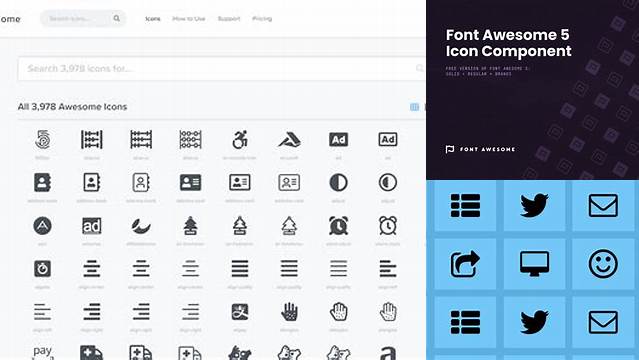
Font Awesome 5 Free: Easy Guide For WordPress
Hey guys! Are you looking to spice up your WordPress website with some awesome icons? Then you've probably heard of Font Awesome, the internet's favorite icon library. In this guide, we'll dive deep into how to use Font Awesome 5 Free in your WordPress site. We're talking everything from installation to customization, so buckle up and let's get started!
What is Font Awesome and Why Use It?
Before we jump into the how-to, let's quickly cover the what and why. Font Awesome is essentially a massive library of scalable vector icons that you can use on your website. Unlike traditional image-based icons, Font Awesome icons are vector-based, meaning they look crisp and clear on any screen size. No more pixelated icons – yay!
But why should you use Font Awesome specifically? There are tons of reasons:
- Scalability: As mentioned, these icons are vectors. This scalability is the key benefit that makes the icons stay sharp on any device, from smartphones to high-resolution desktops. This ensures a consistent and professional look across all platforms, enhancing the user experience.
- Customization: Font Awesome gives you a lot of control over how your icons look. You can easily change their size, color, and even add shadows or other effects using CSS. Customization options allow you to match the icons perfectly with your brand's color scheme and overall design. This level of personalization helps maintain a cohesive visual identity across your website.
- Accessibility: Font Awesome icons are accessible! They can be styled to meet accessibility standards, making your website more user-friendly for everyone. Accessibility is a crucial aspect of web design, ensuring that your site is usable by people with disabilities. By using Font Awesome, you can make your icons accessible to screen readers and other assistive technologies.
- Huge Library: With thousands of icons to choose from, you're bound to find the perfect ones for your needs. The huge library of icons covers a wide range of categories, including social media, web applications, and general-purpose symbols. This extensive selection means you'll likely find icons for every aspect of your website, from navigation menus to contact forms.
- Free (for Basic Use): The free version of Font Awesome offers a generous selection of icons that are perfect for most websites. While there's also a Pro version with even more icons and features, the free version provides a solid foundation for your icon needs. This makes Font Awesome a cost-effective solution for adding visual flair to your site.
Using Font Awesome is a breeze. It's a simple way to add visual elements to your site without slowing it down. Plus, it can actually improve your website's SEO by making it more visually appealing and user-friendly.
- Configure the Plugin (If Necessary): Some plugins might require minimal configuration. For the official Font Awesome plugin, you usually don't need to do much. Just ensure it's activated, and the icons should be available.
- Start Using Icons: Once the plugin is active, you can start using Font Awesome icons in your posts, pages, widgets, and even your theme files. Start using icons by simply using the appropriate HTML or shortcode. The plugin handles the technical details of loading the Font Awesome library.
Using a plugin is the easiest method. This option is excellent for those who prefer a code-free solution. Plugins handle the technical aspects, making it simple to implement Font Awesome icons across your site. Just install, activate, and start adding icons to your content and design.
Method 2: Using a CDN (Content Delivery Network)
A CDN hosts the Font Awesome files on a network of servers, ensuring fast loading times for your website visitors. This method involves adding a snippet of code to your theme's header file.
- Get the CDN Link: Go to the Font Awesome website and find the CDN link for the free version. You can usually find this in the documentation or on their CDN page. Get the CDN link; this is a crucial step as it connects your site to the Font Awesome library hosted on a content delivery network.
- Edit Your Theme's
header.phpFile: In your WordPress dashboard, go to "Appearance" -> "Theme Editor." Find theheader.phpfile. (Be careful when editing theme files directly! It's always a good idea to back up your site first.) - Add the CDN Link: Paste the CDN link within the
<head>tags of yourheader.phpfile. Save the changes. - Start Using Icons: With the CDN link in place, Font Awesome icons are now available for use on your site. You can begin adding icons using their HTML code snippets.
Using a CDN ensures faster loading times. This option is a good balance between simplicity and performance. It allows your website to load icons quickly from a global network of servers. Adding the CDN link to your theme's header is a straightforward process, providing a performance boost for your site. This method is suitable for those who want to minimize plugin usage while still enjoying the benefits of Font Awesome.
Method 3: Self-Hosting Font Awesome
This method involves downloading the Font Awesome files and hosting them on your own server. It gives you the most control but also requires some technical know-how.
- Download Font Awesome: Go to the Font Awesome website and download the free version. Download Font Awesome files to have full control over them and avoid relying on external CDNs.
- Upload Files to Your Theme: Unzip the downloaded files and upload the
webfontsfolder and the CSS file to your theme's directory (usually in a folder namedassetsorcss). - Enqueue the CSS File: In your theme's
functions.phpfile, add code to enqueue the Font Awesome CSS file. This tells WordPress to load the stylesheet. Enqueue the CSS file by adding a function to your theme'sfunctions.phpfile, ensuring that the Font Awesome styles are correctly loaded on your site. - Start Using Icons: Once the CSS file is enqueued, you can start using Font Awesome icons on your site.
Self-hosting gives you the most control. This method is ideal for developers who want complete control over the assets and avoid external dependencies. Self-hosting can also offer performance benefits if your server is well-optimized. However, it requires more technical expertise and maintenance compared to using a plugin or CDN.
How to Use Font Awesome Icons in WordPress
Now that you have Font Awesome installed, let's talk about how to actually use those icons! The main way to use Font Awesome icons is through HTML code. Each icon has a unique class name that you can use in your HTML.
- Find the Icon You Want: Head over to the Font Awesome website and browse the icon library. When you find an icon you like, click on it to see its details. Find the icon you want by browsing the extensive Font Awesome library, which offers a diverse range of icons for various purposes.
- Copy the HTML Code: On the icon's page, you'll see the HTML code snippet. It usually looks something like
<i class="fas fa-heart"></i>. Copy this code. Copy the HTML code snippet provided on the icon's page, which includes the necessary classes to display the icon correctly. - Paste the Code into Your Content: Go to your WordPress post, page, or widget where you want to display the icon. Paste the HTML code into the content editor. If you're using the visual editor, you might need to switch to the text editor to paste the code. Paste the code into your content using either the visual or text editor in WordPress, ensuring the icon appears in the desired location on your page.
For example, if you want to add a heart icon next to your blog post title, you'd paste the code <i class="fas fa-heart"></i> before or after the title text.
Customizing Font Awesome Icons
The beauty of Font Awesome is that you can customize the icons to fit your website's design. Here are some common customizations:
- Size: You can easily change the size of icons using CSS. Font Awesome provides classes like
fa-xs,fa-sm,fa-lg,fa-2x,fa-3x,fa-5x,fa-7x, andfa-10xto adjust the size. For example, to make an icon twice its normal size, you'd add the classfa-2xto the<i>tag. Size customization is simple with Font Awesome's built-in classes, allowing you to adjust icon sizes from extra-small to ten times the default size. - Color: Changing the color of an icon is as simple as adding a CSS color property to the
<i>tag. You can use hex codes, color names, or RGB values. Color changes can be made easily by applying CSS color properties to the icon's<i>tag, enabling you to match your site's color scheme. - Rotation and Flipping: Font Awesome allows you to rotate and flip icons using CSS classes like
fa-rotate-90,fa-rotate-180,fa-rotate-270,fa-flip-horizontal, andfa-flip-vertical. Rotation and flipping options provide additional flexibility in icon design, allowing you to orient icons as needed with simple CSS classes. - Adding Styles: You can add additional styles like shadows, borders, and animations using CSS. This allows you to create unique and engaging icons that stand out on your website. Adding styles such as shadows, borders, and animations can further enhance your icons, making them more visually appealing and interactive.
Sometimes, things don't go as planned. Here are some common issues you might encounter when using Font Awesome in WordPress and how to fix them:
- Icons Not Displaying: If your icons aren't showing up, double-check that you've installed Font Awesome correctly. Ensure the CDN link is in your
header.phpfile or that the plugin is activated. Also, verify that you're using the correct HTML code for the icons. Icons not displaying can often be resolved by checking the installation method, CDN link, plugin activation, and accuracy of the HTML code. - Icons Look Pixelated: If your icons look pixelated, it's likely a caching issue. Clear your browser cache and your WordPress cache (if you're using a caching plugin). Since Font Awesome icons are vector-based, they should always look crisp, so pixelation typically indicates a problem with caching or the way the icons are being loaded. Icons looking pixelated usually points to a caching issue that can be resolved by clearing browser and WordPress caches.
- Conflicting Styles: Sometimes, your theme or another plugin might have styles that conflict with Font Awesome. Try adding
!importantto your CSS styles to override the conflicting styles. Conflicting styles from other plugins or themes can be overridden by using the!importantdeclaration in your CSS to ensure Font Awesome styles are applied.
Font Awesome Pro vs. Free: Which One to Choose?
Font Awesome offers both a free and a Pro version. The free version has a solid collection of icons, but the Pro version boasts a much larger library, more styles, and additional features.
- Font Awesome Free: This version is perfect for most basic websites. It includes thousands of icons in various styles, covering a wide range of categories. Font Awesome Free is suitable for many websites, providing a robust set of icons across different categories and styles.
- Font Awesome Pro: The Pro version offers a significantly larger library of icons, including more styles (like Thin, Light, Duotone) and advanced features like official icon packages for frameworks like React and Vue.js. Font Awesome Pro is ideal for projects needing an extensive icon library, additional styles like Thin and Duotone, and advanced features for modern web development frameworks.
So, which one should you choose? If you're just starting out or have basic icon needs, the free version is an excellent choice. However, if you need a wider variety of icons, more styles, or are working on a large or complex project, Font Awesome Pro might be worth the investment.
Font Awesome 5 Free is a fantastic resource for adding icons to your WordPress website. It's easy to install, customizable, and can significantly enhance your site's visual appeal. Whether you choose to use a plugin, a CDN, or self-hosting, you'll be able to add beautiful icons to your site in no time. So go ahead, give it a try, and make your website even more awesome!